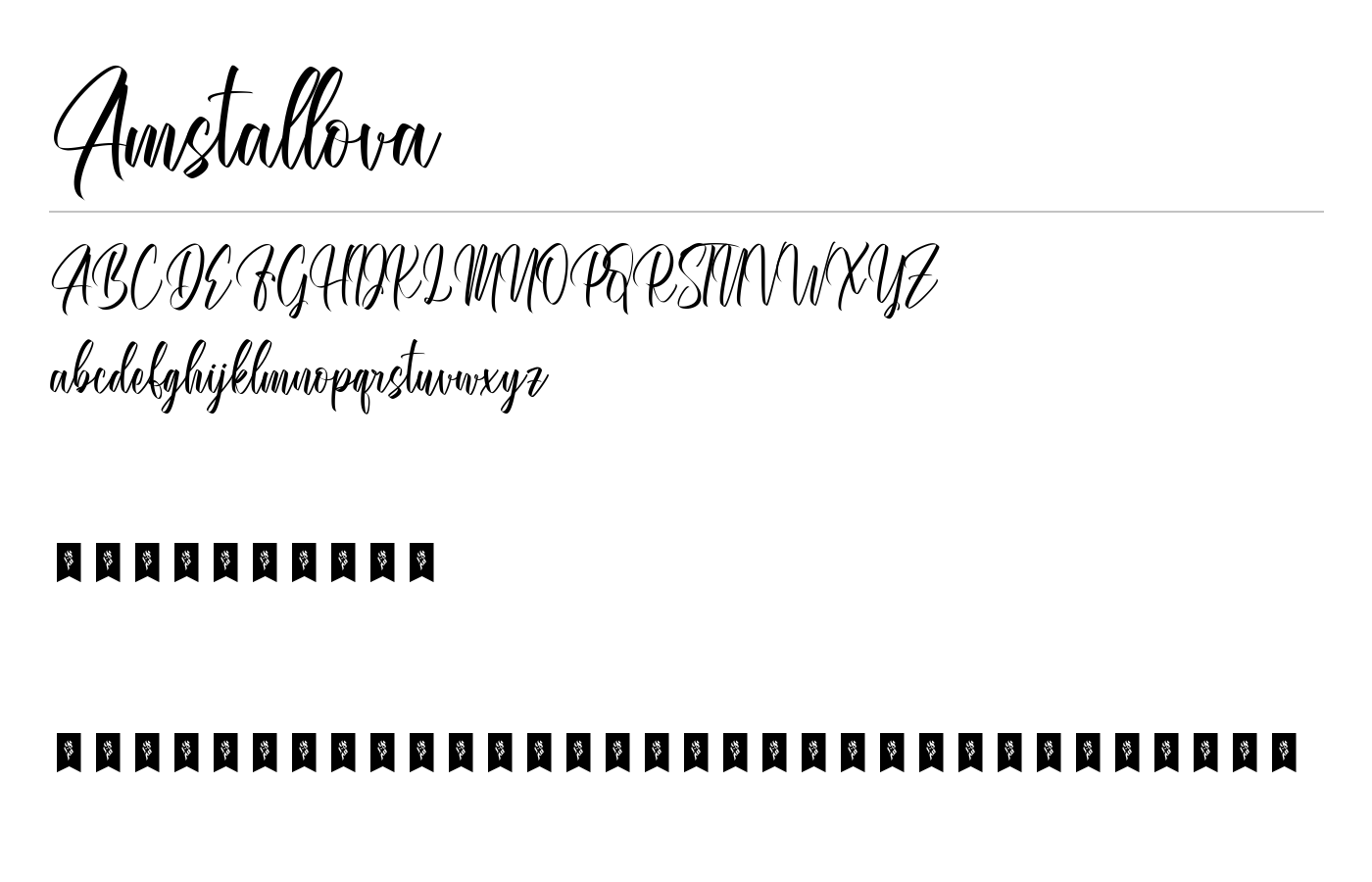
Amstallova is a stylish script font characterized by its elegant, flowing strokes and high contrast between thick and thin lines. With its handwritten feel and refined curves, it evokes a sense of sophistication and grace, making it perfect for luxury branding, wedding invitations, and editorial headlines. Its delicate yet legible design shines in settings where a touch of personal and artistic flair is desired.
Amstallova Font
About Amstallova Font